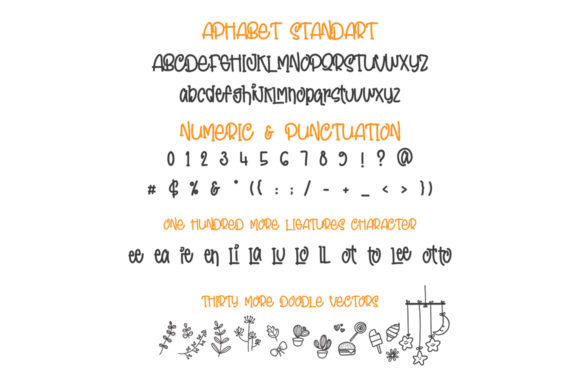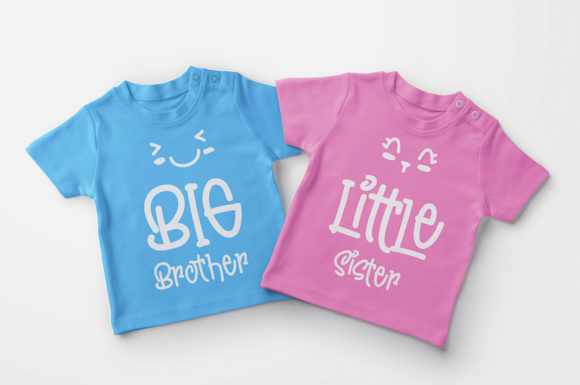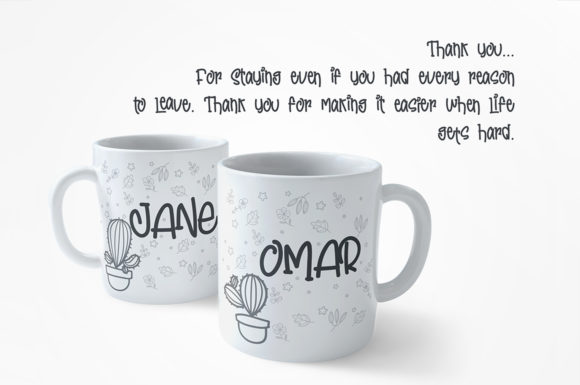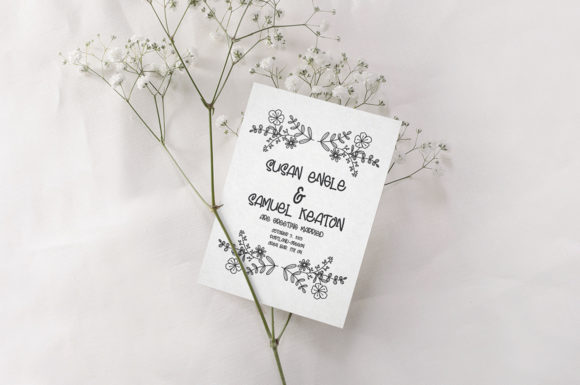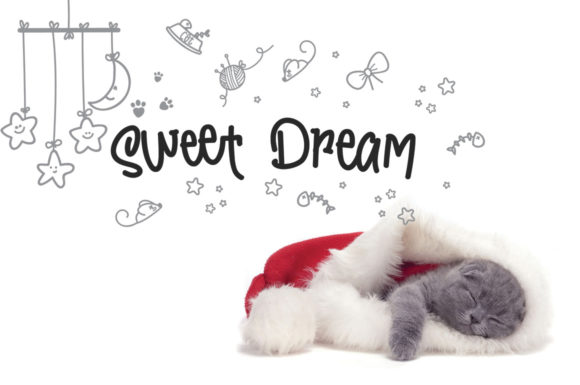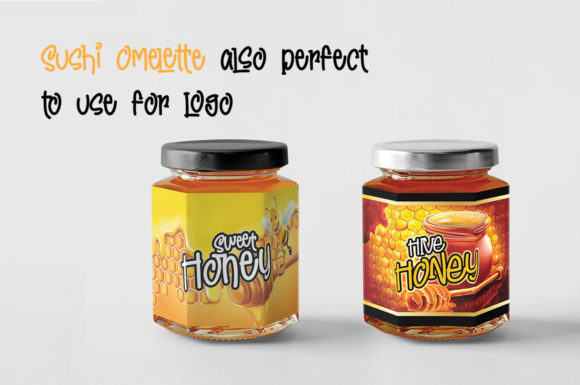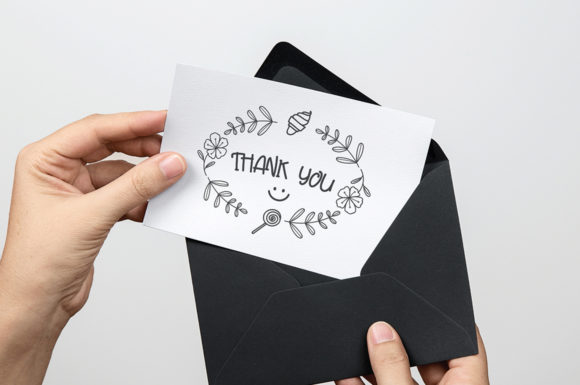
Sushi Omelette Font
About Sushi Omelette Font
The Sushi Omelette is a happy and fun typeface. It has a playful feel and a great readability!
Included as a bonus are fun doodles to decorate your designs!